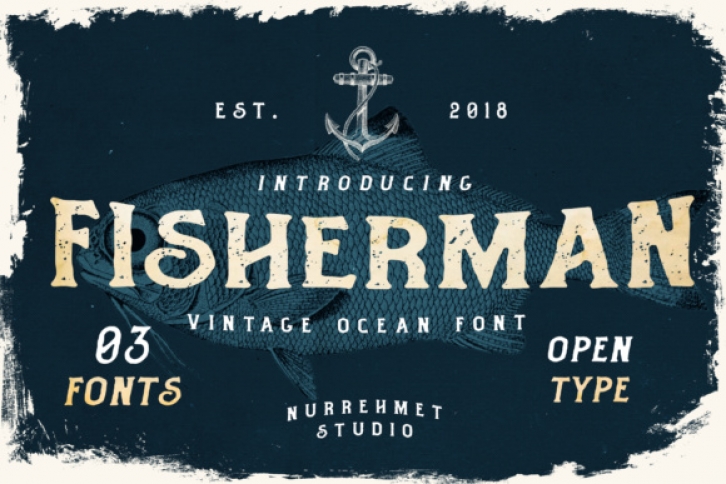
A spirit of the ocean made Fisherman. It has a vintage yet ocean feel which makes it perfect for ocean and sea themed projects. It comes in three styles: regular, slant and rough. Just pick your favorite and start creating some striking logos, wedding designs, social media posts, advertisements, product packaging, product designs, labels, photography, watermarks, invitations or stationery.